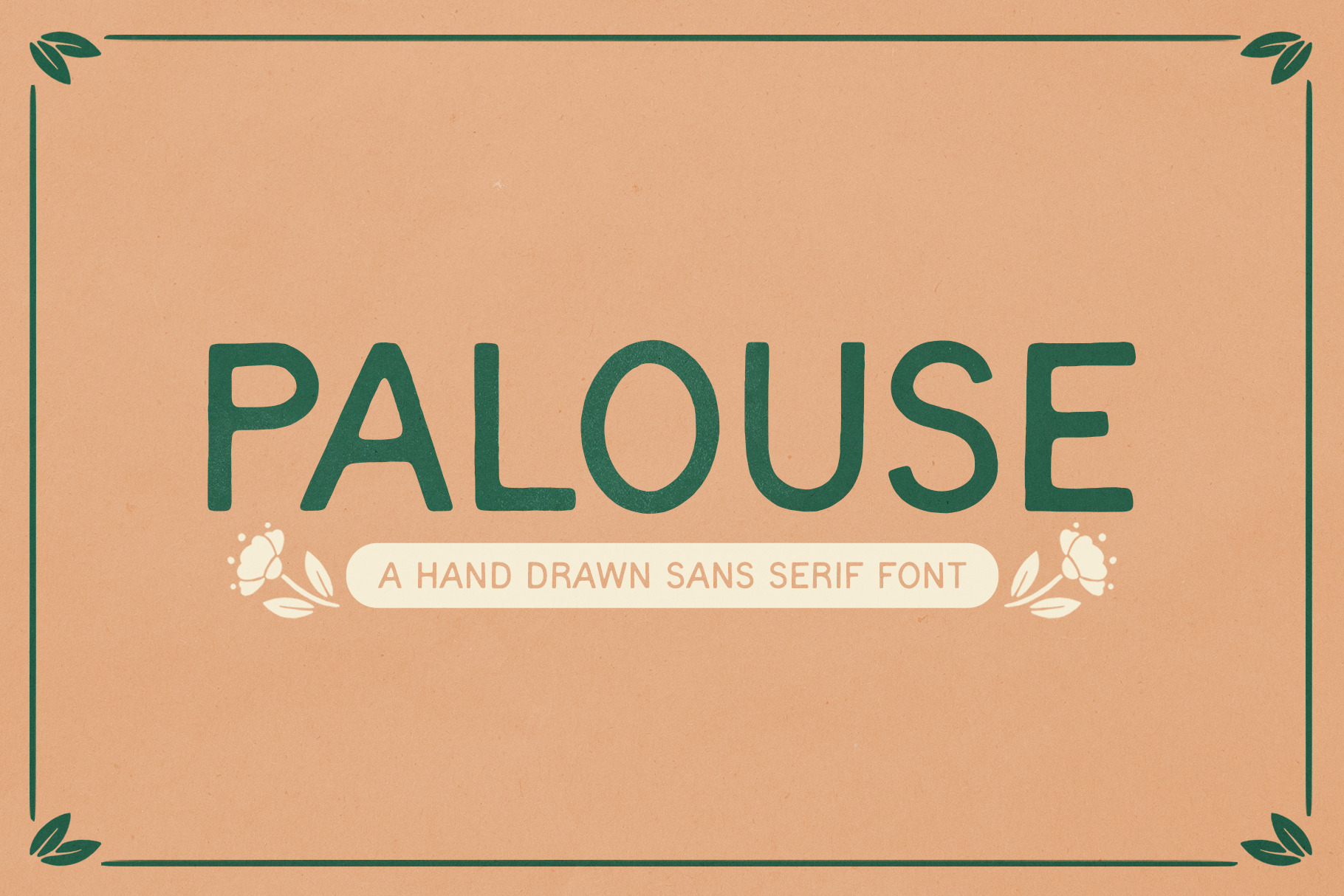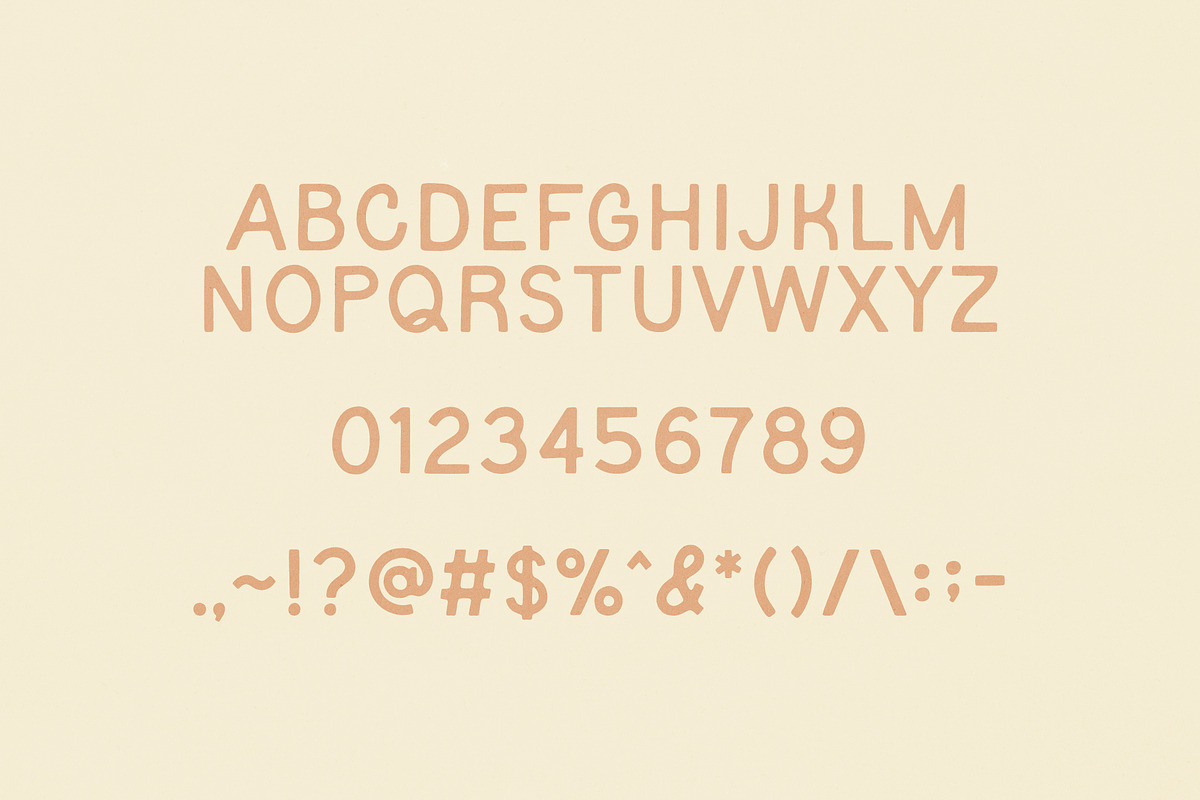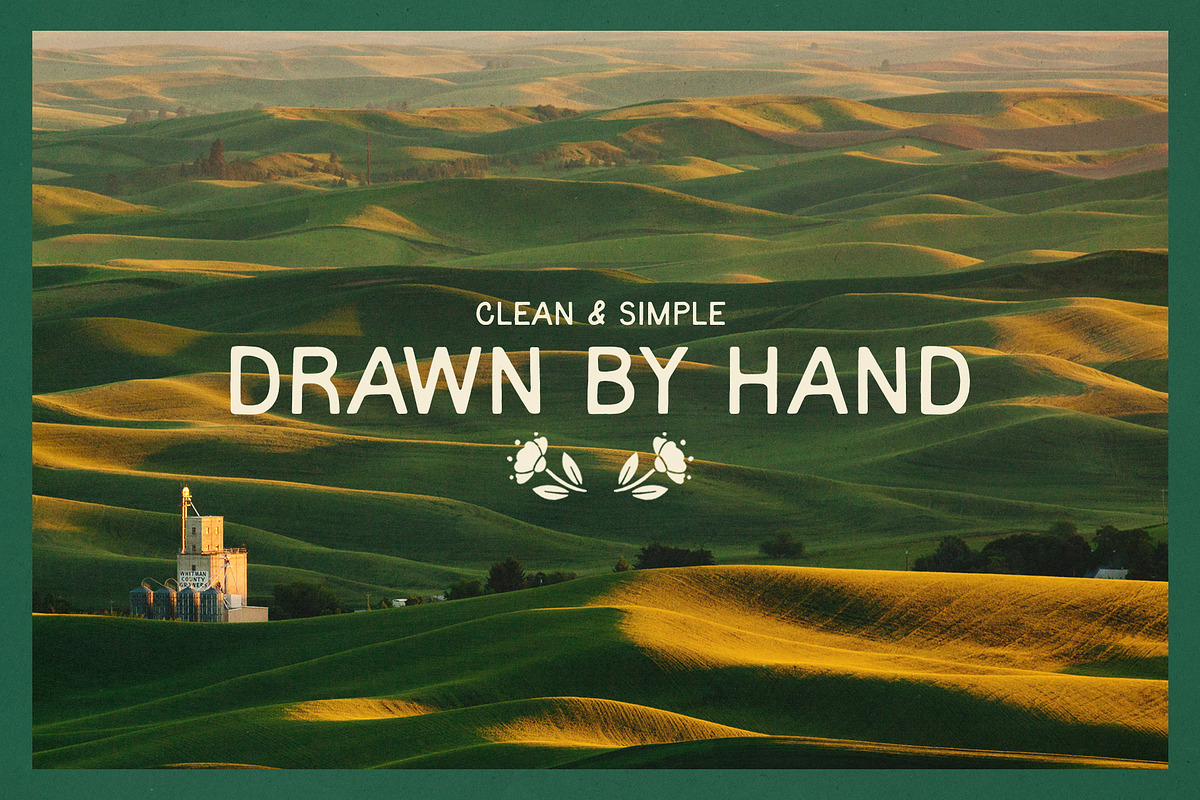
PALOUSE | Hand Drawn Sans Serif Font
PALOUSE | A Hand Drawn Sans Serif Font.
Contains uppercase A-Z, numbers 0-9, basic punctuation, and select alternate characters.